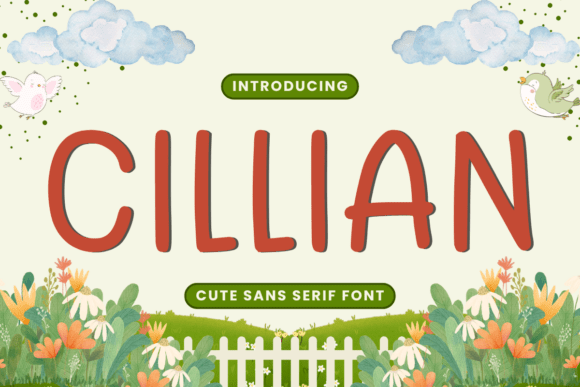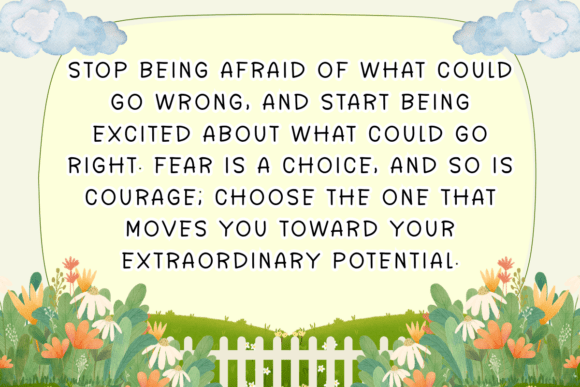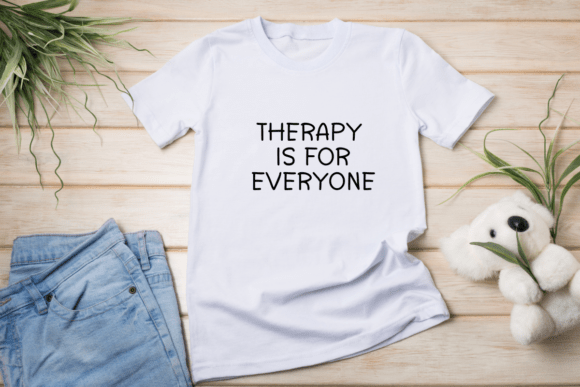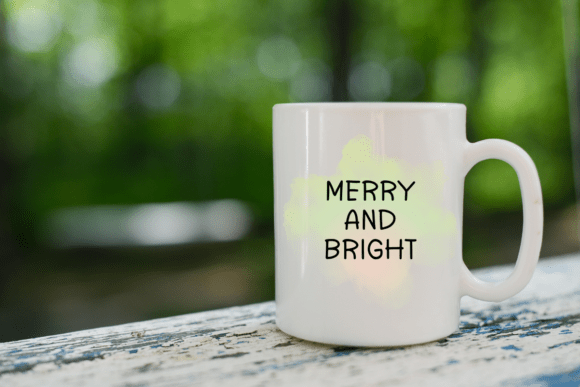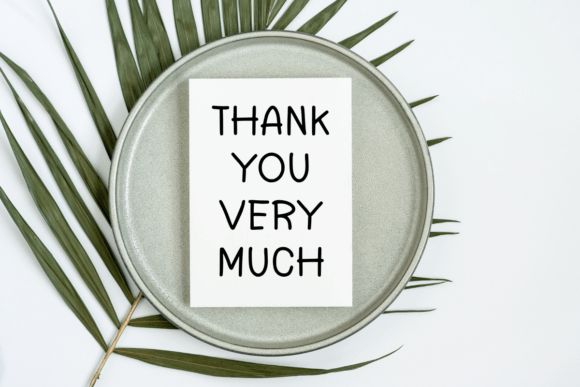
The Perfect Touch: Unleashing Your Creativity with Cillian Font
Have you ever been stuck on a design project, struggling to find the right font to bring your vision to life? I know I have. It’s that frustrating moment when you’re scrolling through font options, and nothing seems to capture the essence of your creative idea. But what if I told you that there’s a font that can change all that? Enter Cillian Font, a beautiful, handwriting sans-serif font that’s sure to add a touch of whimsy to your designs.
Whether you’re a seasoned designer or a hobbyist, Cillian Font is a valuable addition to your toolkit. Its cute and elegant style makes it perfect for quotes, stickers, mugs, tumblers, and sublimation projects. With Cillian Font, you’ll be able to create unique and eye-catching designs that will set you apart from the crowd.
Cillian Font Key Features
- Font Family: Cillian Font is a sans-serif font family.
- Size: The font family is available in 6 weights, ranging from Light (100) to Extra Bold (800).
- Resolution: Optimized for high-resolution displays, suitable for use at resolutions up to 300 DPI.
- Unique Characteristics: Cillian Font features a clean and modern design, with a focus on legibility and readability, making it suitable for a wide range of applications, including digital interfaces, publications, and signage.
Cillian Font Review
I recently had the chance to work with the Cillian font, and I have to say it’s a mixed bag. On the one hand, it’s a beautiful font with a unique, elegant feel to it. The ✨ curves and rounded edges make it perfect for creating a sense of sophistication and refinement in your designs. It’s also a great choice for creating a sense of luxury and high-end feel.
Here are some specific things that work well:
- ✨ Elegant and refined feel
- ✨ Great for luxury and high-end branding
- ✨ Works well for creative and artistic projects
- ⚠️ May not be suitable for bold or dramatic designs
- ⚠️ Can be difficult to read at smaller font sizes
- ⚠️ May not be as versatile as other fonts
Overall, I would say that the Cillian font is a great choice for designers who want to create a sense of luxury and sophistication in their designs. However, it’s not a one-size-fits-all solution, and you may need to consider other fonts for more bold or dramatic designs.
The Cillian Font is ideal for:
- Headings and titles in publications and designs
- Body text in brochures, flyers, and posters
- Logo design and branding
- Editorial and publishing projects
For the best results, use the Cillian Font in conjunction with other clean and minimalist fonts. Experiment with different font sizes and styles to create visual interest and hierarchy in your design.